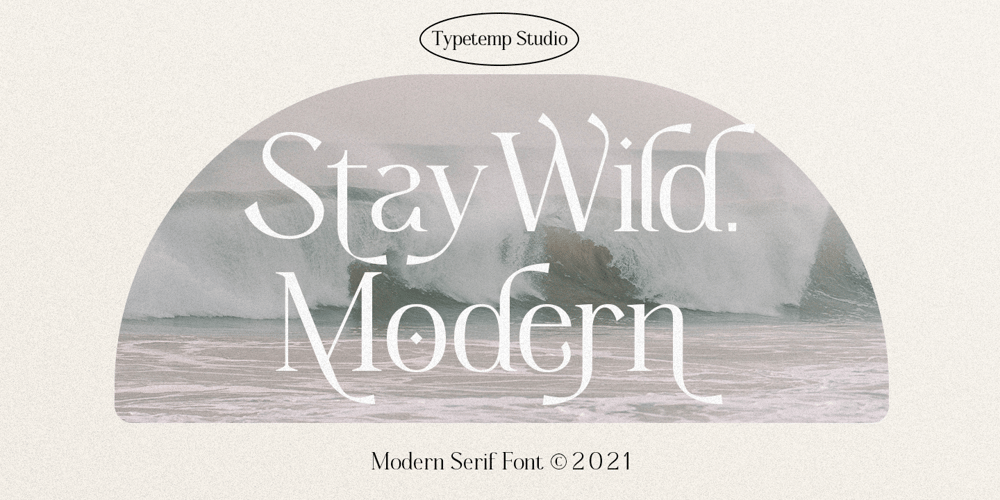
Staywild Modern Font Family was designed by Egi Ahmad Mufid and published by Typetemp Studio. Staywild Modern contains 1 styles and family package options. Stay Wild Serif Display a modern-style serif font with alternatives and ligatures that create stunning logos, quotes, posts, blog posts. branding projects, magazine imagery, wedding invitations, and much moreFeatures : Multilanguange PUA Encoded Web Font Included Illustration Include (.Ai) Contact me with an inbox message If you have any question. Thank you! Happy Creating.